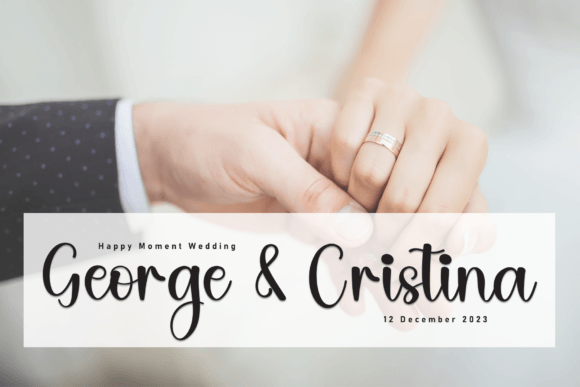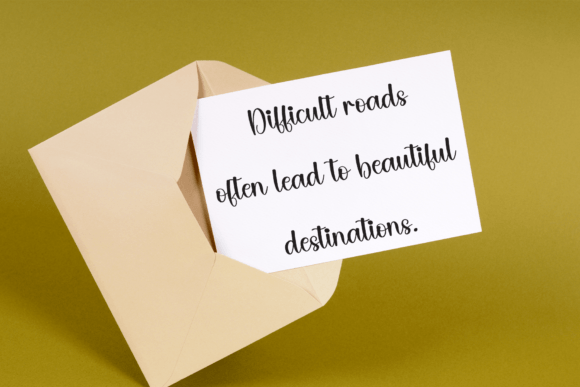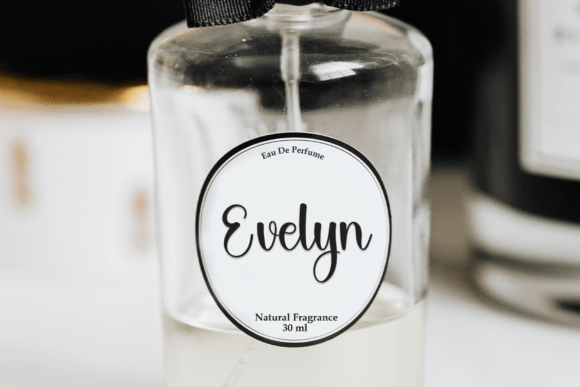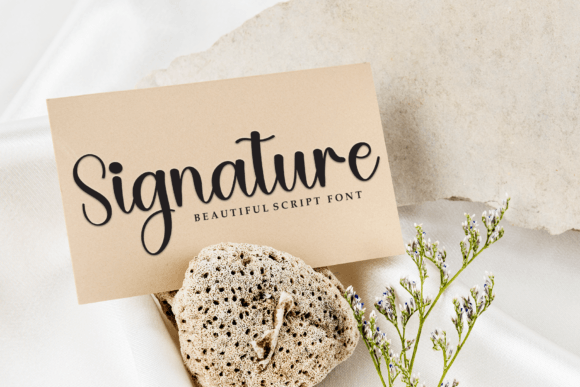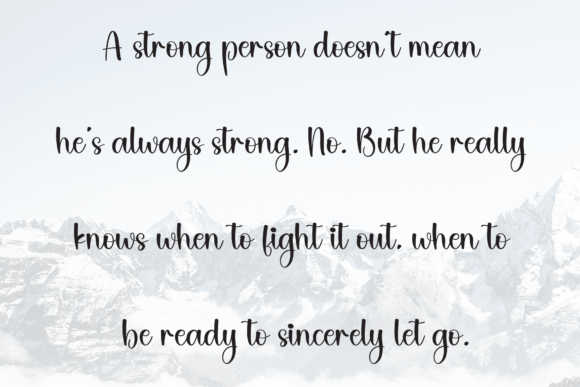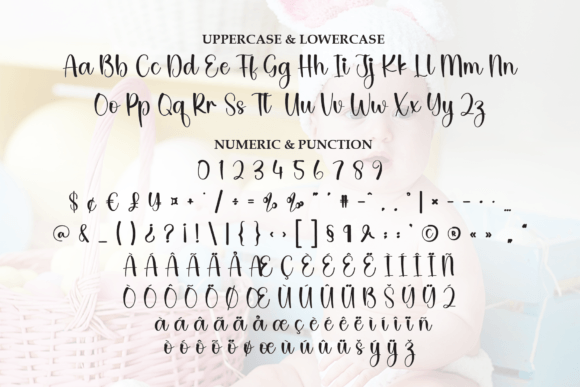
Babycute Font: The Ultimate Choice for Elegant and Modern Designs
Are you a designer or crafter looking for a font that exudes elegance, sophistication, and a touch of modernity? Look no further than the Babycute Font. This exquisite handwritten font is masterfully designed to become a true favorite among designers and crafters alike. With its classy calligraphic influences and fresh, contemporary feel, Babycute Font is the perfect choice for bringing your projects to the highest levels.
What Makes Babycute Font So Special?
Babycute Font is a beautifully crafted handwritten font that boasts a unique blend of traditional calligraphy and modern flair. Its elegant and refined appearance makes it perfect for a wide range of design projects, from wedding invitations and branding materials to digital products and craft files. The font’s versatility and flexibility make it an excellent addition to any designer’s or crafter’s toolkit.
Key Features of Babycute Font
- Exquisite Handwritten Design: Babycute Font features a stunning handwritten design that is both elegant and refined.
- Classy Calligraphic Influences: The font’s calligraphic influences give it a sophisticated and luxurious feel.
- Contemporary and Fresh: Despite its classic influences, Babycute Font feels modern and fresh, making it perfect for contemporary designs.
- Highly Versatile: The font is suitable for a wide range of design projects, from digital products to print materials.
Why Designers and Crafters Love Babycute Font
Designers and crafters love Babycute Font for its unique combination of elegance, sophistication, and versatility. Here are just a few reasons why:
- Elegant and Refined: Babycute Font adds a touch of elegance and refinement to any design project.
- Easy to Read: The font’s clear and legible design makes it easy to read, even at small sizes.